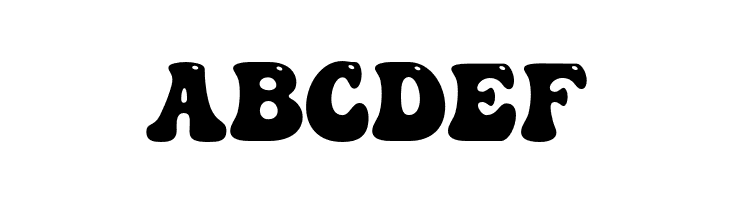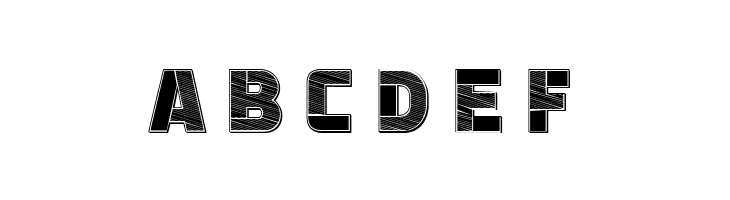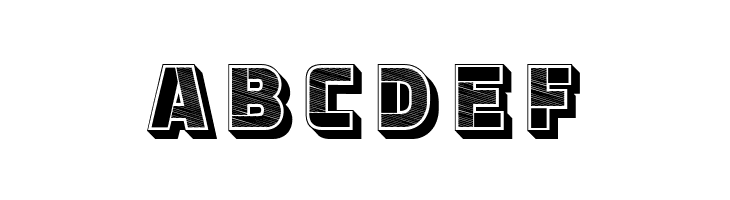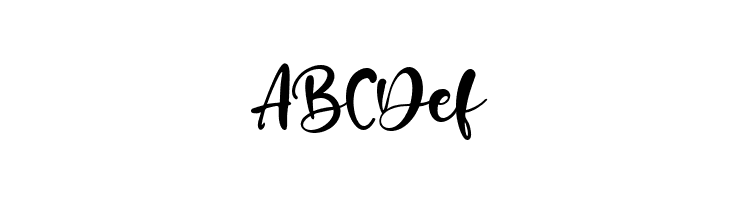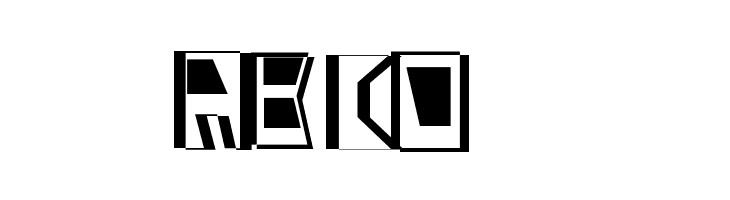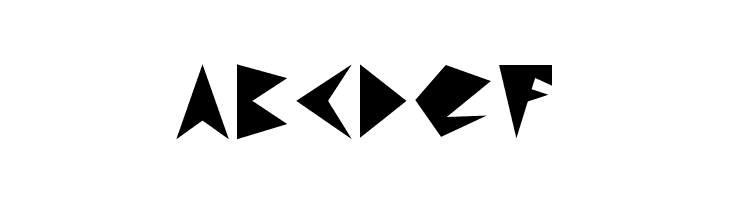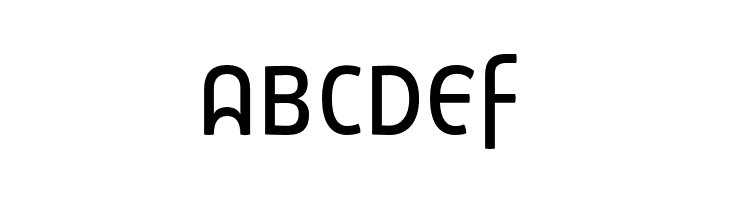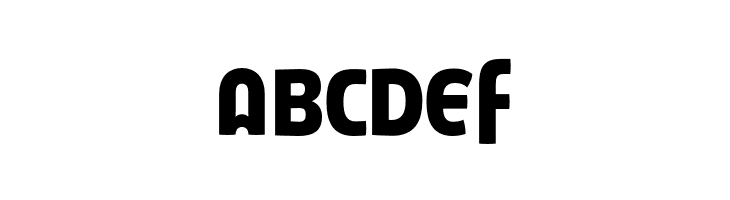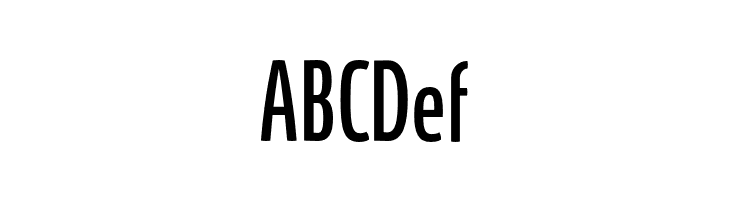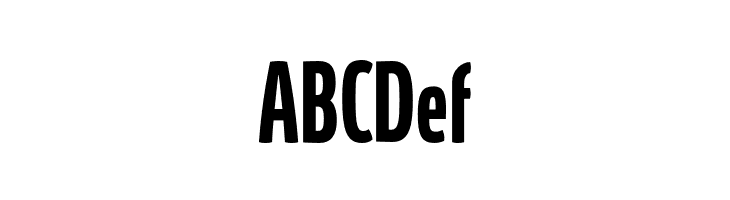
• AbsolutSketchRed-Thin
A hand-drawn, sketch-like font with thin, irregular strokes for a casual, artistic feel.
• Absolutte
A playful and elegant cursive font with a handwritten feel.
• Absolutte
A lively and expressive script font with elegant, flowing cursive letters.
• AbsolutUltraCondensedRed-Bold
A bold, ultra-condensed font with a modern and impactful style.
• AbsolutUltraCondensedRed-Book
A modern, ultra-condensed sans-serif font with tight spacing and uniform strokes.
• AbsolutUltraCondensedRed-Lt
A sleek, ultra-condensed font with a modern, minimalist design.
• AbsolutUltraCondensedRed-Med
A bold, ultra-condensed font with high contrast and a modern, geometric style.
• AbsolutUltraCondensedRed-Thin
A sleek, ultra-condensed, and thin font with a modern aesthetic.
• AbsolutUnicaseRed-Bold
A bold, modern unicase font with geometric shapes and consistent stroke widths.
• AbsolutUnicaseRed-Book
A modern unicase font with rounded, geometric shapes and consistent stroke width.
• Absortile
A classic serif font with high contrast and elegant, sharp serifs.
• Absortile
A high-contrast serif font with elegant, sharp serifs and a classic style.
• Absortile-Bold
A bold, classic serif font with strong, elegant strokes.
• Absortile-Bold
A bold, classic serif font with high contrast and elegant details.
• ABSTEMIOUS
A bold, distressed font with a grunge, vintage aesthetic.
• Abstract Abomination
• Abstract Blocks Book Regular
A bold, geometric font with a textured, industrial style.
• Abstract Blocks Regular
A bold, three-dimensional block font with textured fill and shadow effects.
• Abstract Groovy
A bold, retro font with a playful, groovy style and rounded, exaggerated curves.
• Abstract Groovy
A bold, retro-inspired font with playful, rounded characters.
• Abstract Labyrinth Rounded
A bold, maze-like font with rounded edges and a futuristic, abstract style.